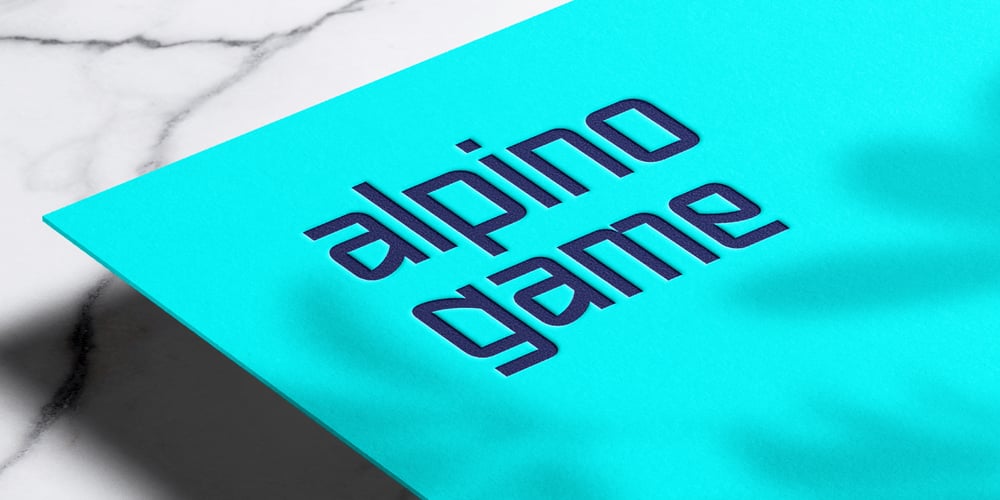
Vivo Sans Font Family was designed by Björn Berglund and published by Björn Berglund Creative Studio. Vivo Sans contains 2 styles and family package options. Vivo sans is heavily inspired by modern technology, the nordic climate & classic video games. Perfect use for game studios or tech brands that aspire to be modern and futuristic. The font is currently available in 2 weights, Light and Regular, and comes with over 200 glyphs.